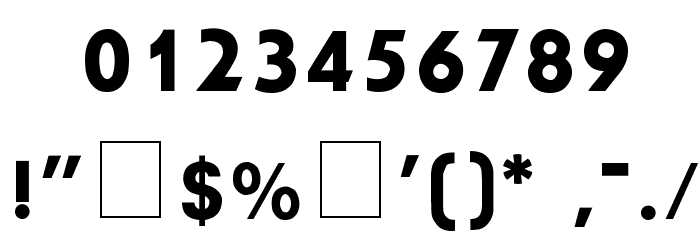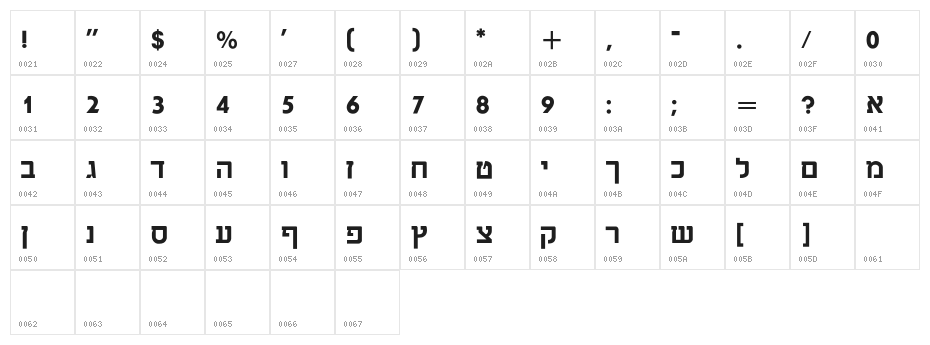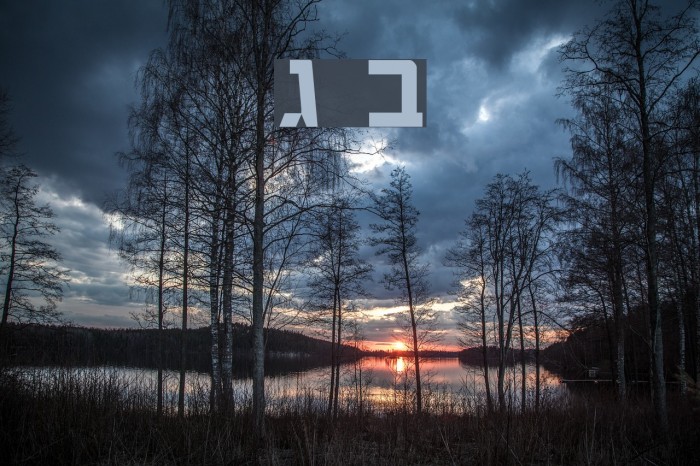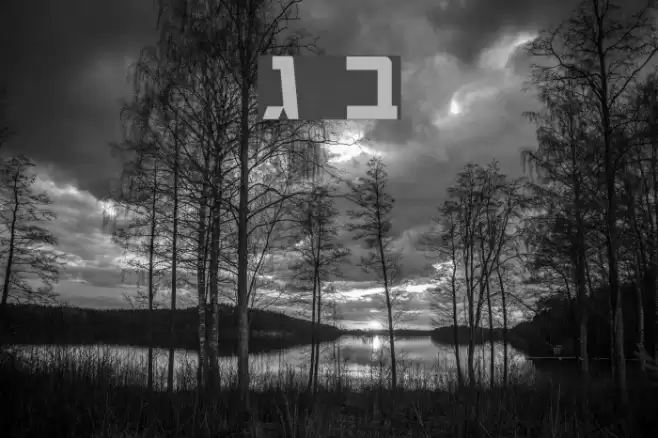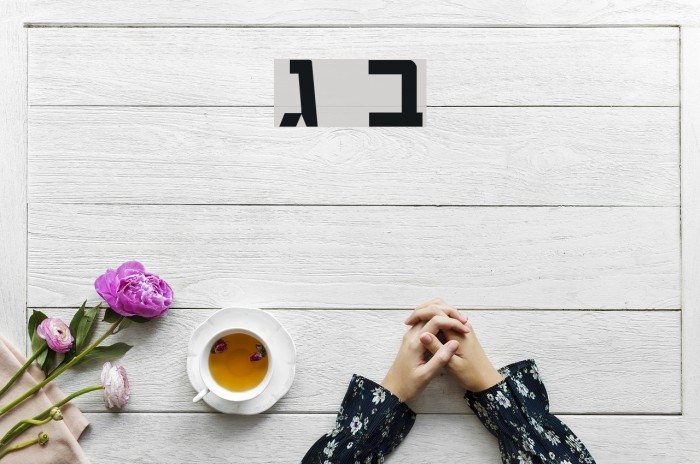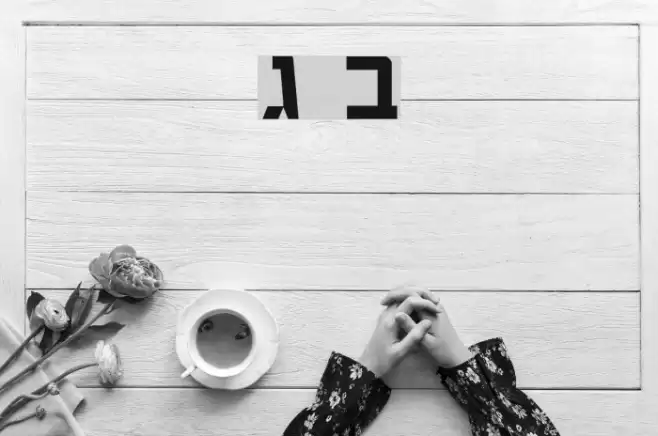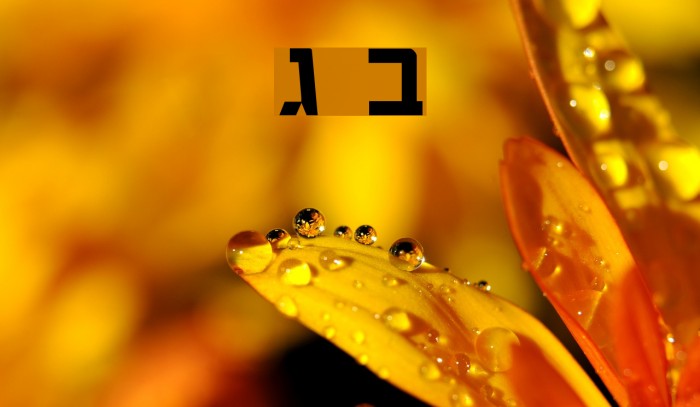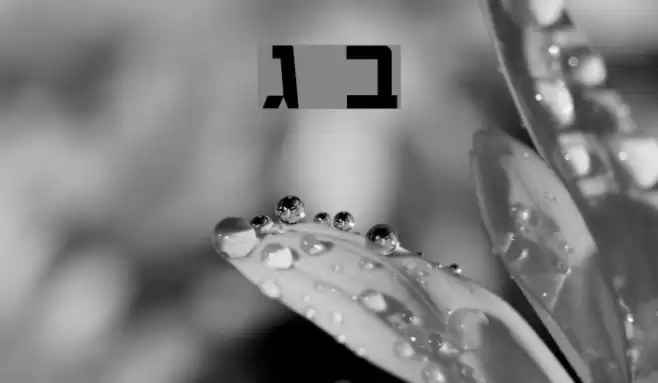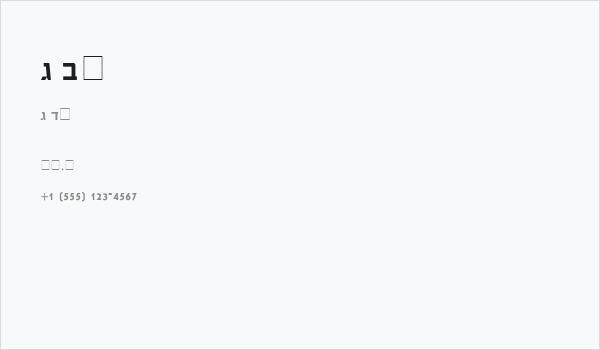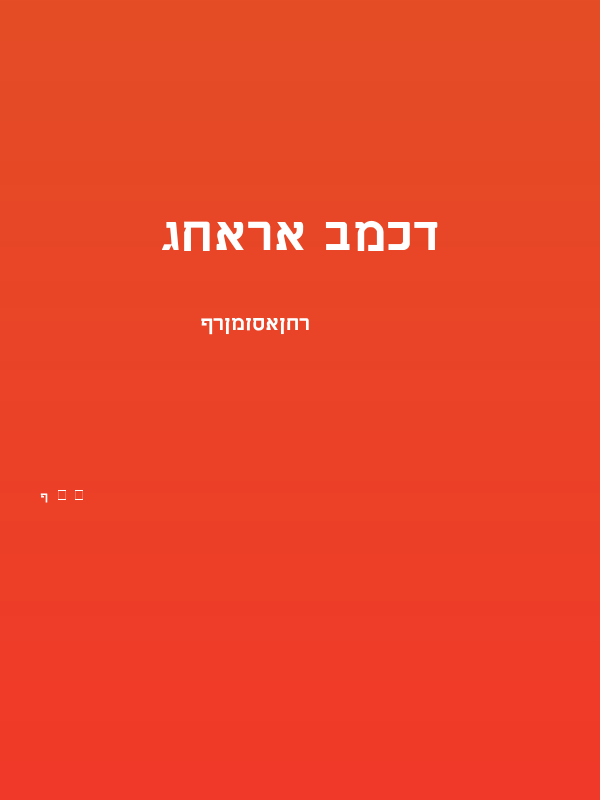
Chaya Bold Font
Chaya Bold Description
This font features bold, geometric characters with a strong presence. The letters are evenly spaced and have a uniform thickness, creating a clean and modern look. The numerals are consistent with the letterforms, maintaining the bold style. Special characters are clearly defined, adding to the font's versatility. The overall design is straightforward and impactful, making it suitable for various applications where clarity and emphasis are needed.
| Proposed Projects | Ideal for headlines, posters, branding, and any project requiring a strong visual impact. |